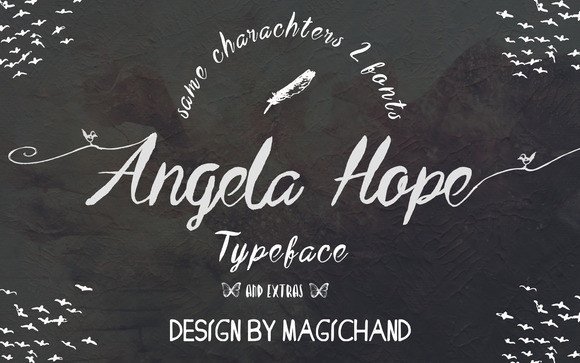
Discover the Elegance of Angela Hope Font: Elevate Your Designs with this Beautiful Typeface
Are you a designer, crafty enthusiast, or simply someone who appreciates beautiful typography? Look no further than the Angela Hope Font, a stunning typeface that can elevate your creative projects to new heights. With its elegant and versatile design, Angela Hope Font is perfect for a wide range of applications, from posters and t-shirts to letterheads, cafe menus, and beyond.
The Beauty of Angela Hope Font
Angela Hope Font is a beautiful typeface that exudes sophistication and charm. Its unique design features a perfect blend of classic and modern elements, making it an excellent choice for designers and crafters looking to add a touch of elegance to their work. Whether you’re creating a vintage-inspired poster or a modern t-shirt design, Angela Hope Font is sure to impress.
One of the standout features of Angela Hope Font is its incredible versatility. This typeface can be used for a wide range of purposes, including:
- Posters: Create eye-catching posters for events, promotions, or advertising campaigns that demand attention.
- T-shirts: Design stylish and comfortable t-shirts that feature bold, eye-catching typography.
- Letterheads: Add a touch of professionalism to your business correspondence with elegant letterheads.
- Cafes and Restaurants: Create menus, signage, and promotional materials that reflect your brand’s personality and style.
- And much more: From invitations and greeting cards to logos and branding materials, Angela Hope Font is the perfect choice for any project that requires a beautiful, high-quality typeface.
Why Choose Angela Hope Font?
So, what sets Angela Hope Font apart from other typefaces? Here are just a few reasons why designers and crafters love this beautiful font:
- Unique Design: Angela Hope Font features a distinctive design that is both elegant and eye-catching.
- High-Quality: This typeface is crafted with precision and attention to detail, ensuring that it looks great in any context.
- Easy to Read: Despite its elegant design, Angela Hope Font is highly legible, making it perfect for body text and headlines.
- Customizable: With its wide range of applications and uses, Angela Hope Font can be tailored to suit your specific design needs.
Tips for Using Angela Hope Font
To get the most out of Angela Hope Font, here are a few tips to keep in mind:
- Experiment with Sizes: Angela Hope Font looks great in a wide range of sizes, from small body text to large headlines.
- Play with Colors: This typeface pairs well with a variety of colors, so don’t be afraid to get creative and try out different combinations.
- Mix and Match: Combine Angela Hope Font with other typefaces to create unique and interesting visual effects.
- Pay Attention to Kerning: To ensure that your text looks its best, make sure to adjust the kerning to suit your design.
In conclusion, Angela Hope Font is a beautiful and versatile typeface that is perfect for designers, crafters, and anyone looking to elevate their creative projects. With its elegant design, high-quality craftsmanship, and wide range of applications, this font is sure to become a staple in your design toolkit. So why wait? Discover the elegance of Angela Hope Font today and take your designs to new heights!